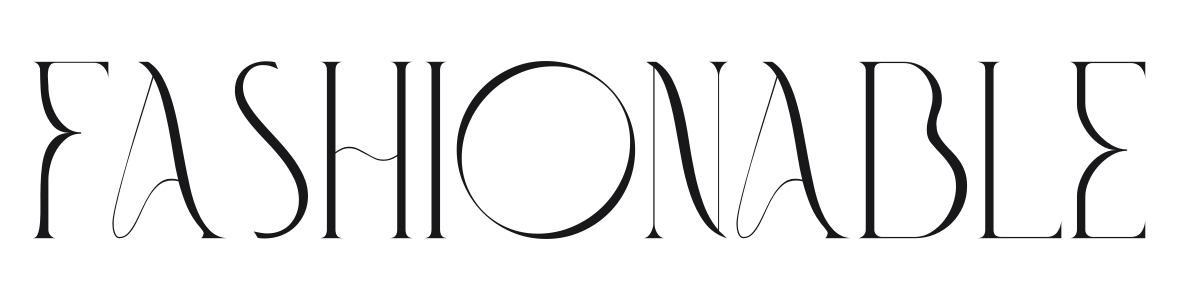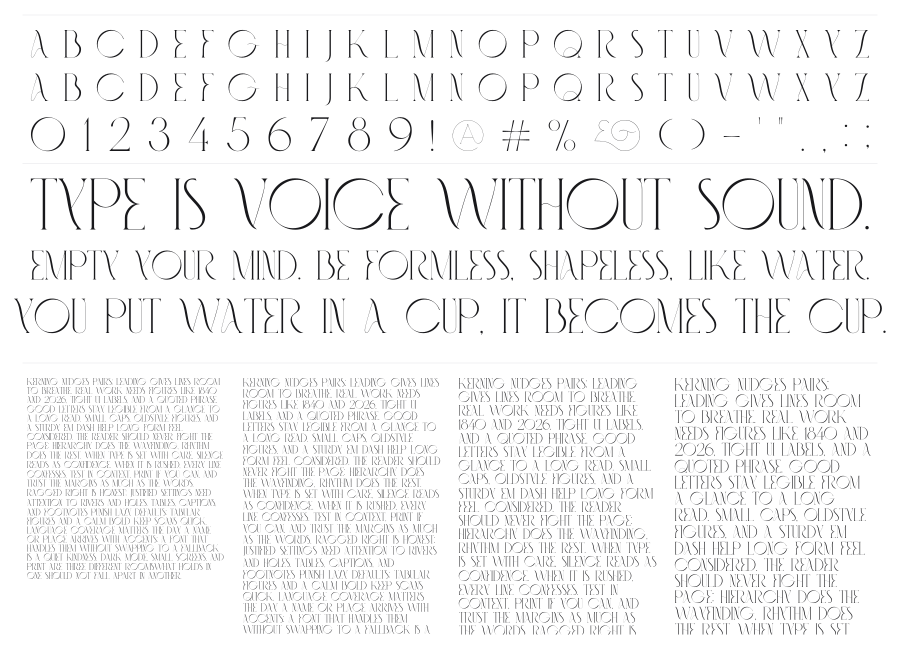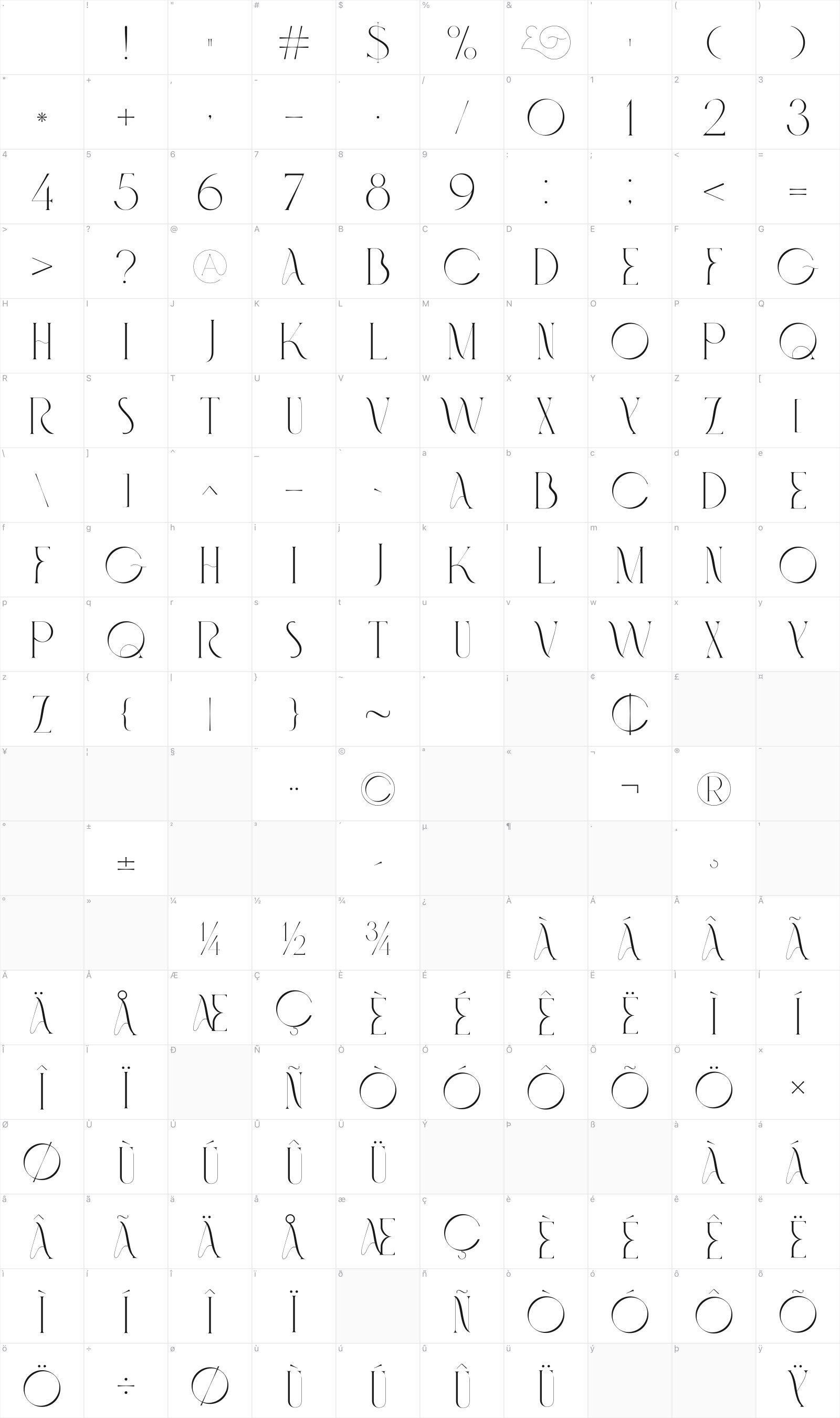
Fashionable
Fashionable is a razor-thin condensed serif built on extreme stroke contrast and tall, narrow proportions. The hairline strokes and swooping curves draw from Didone tradition while pushing into contemporary fashion territory. It suits editorial headlines, luxury branding, and anywhere the design calls for understated drama.